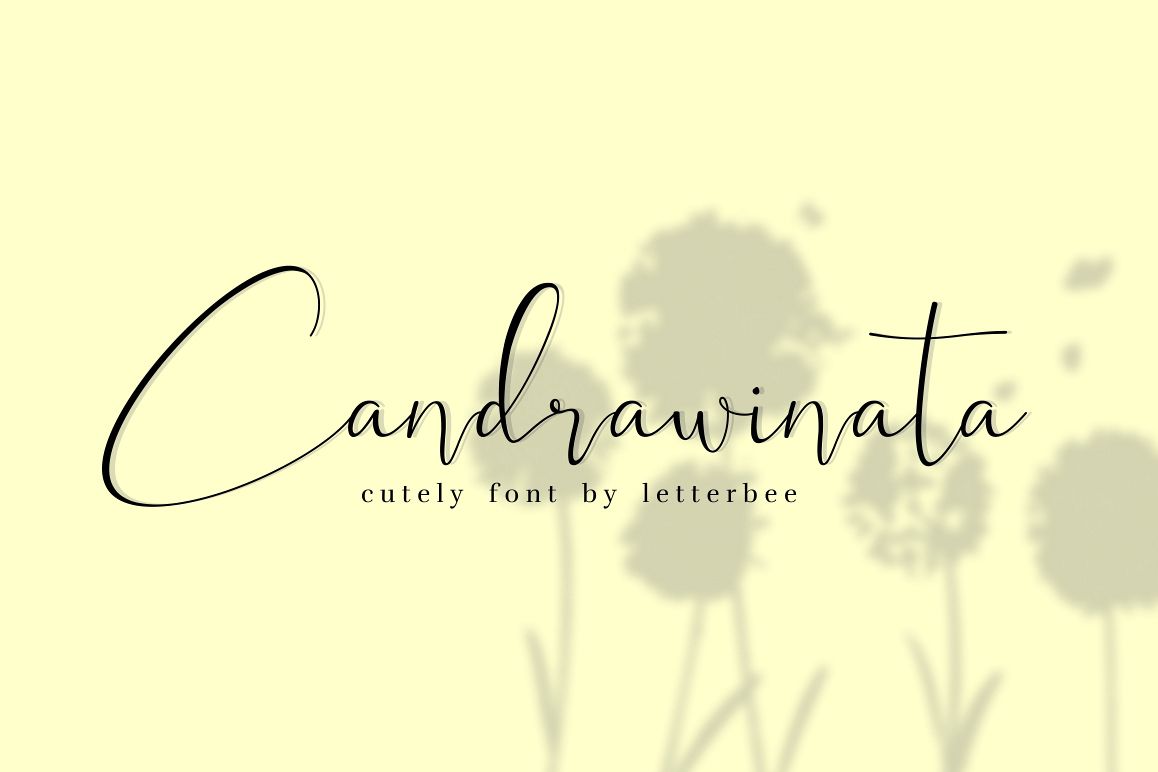
Candrawinata
Candrawinata is a cutely script font with elegant lines make this font perfect for your personal branding and any awesome project, such as : logos, invitations, stationery, wedding designs, social media posts, advertisements, product packaging, product designs, labels, photography, watermarks, special events and much more !!!